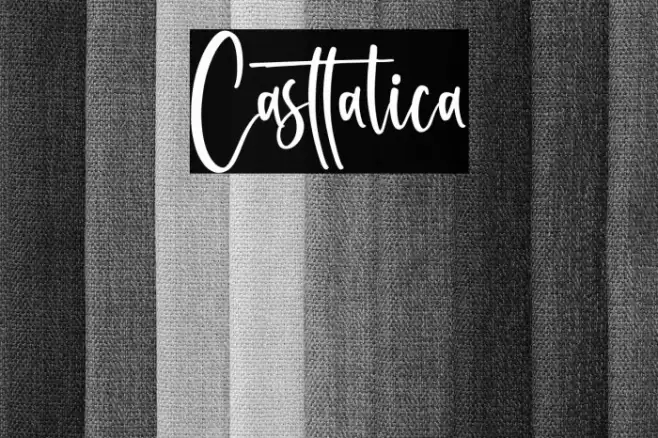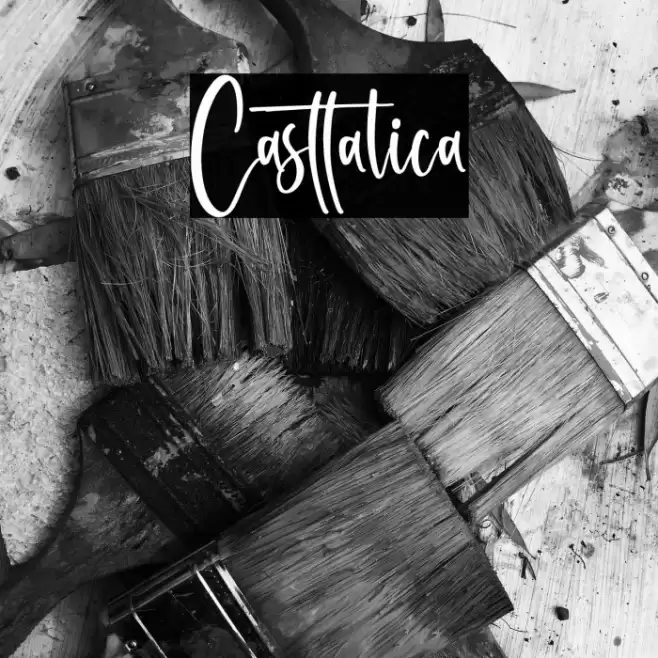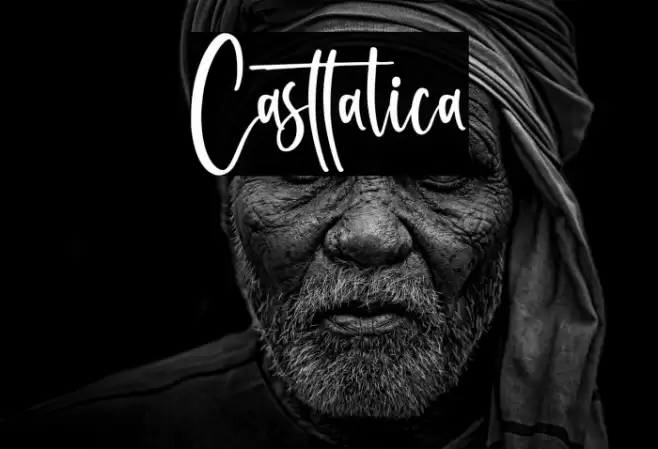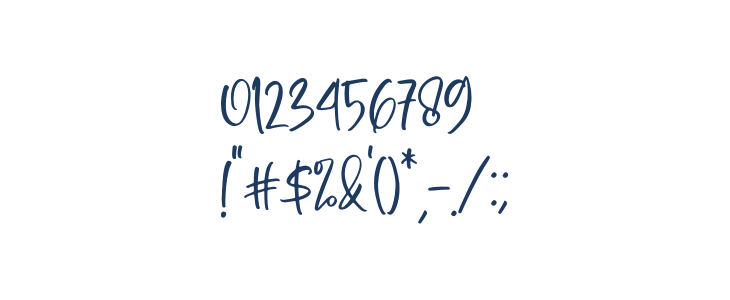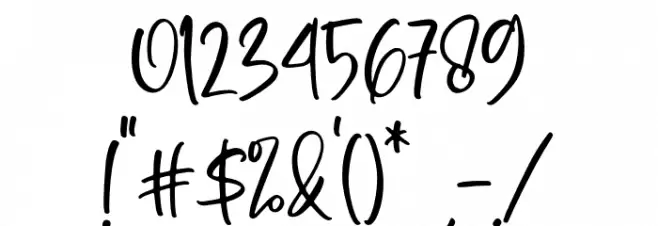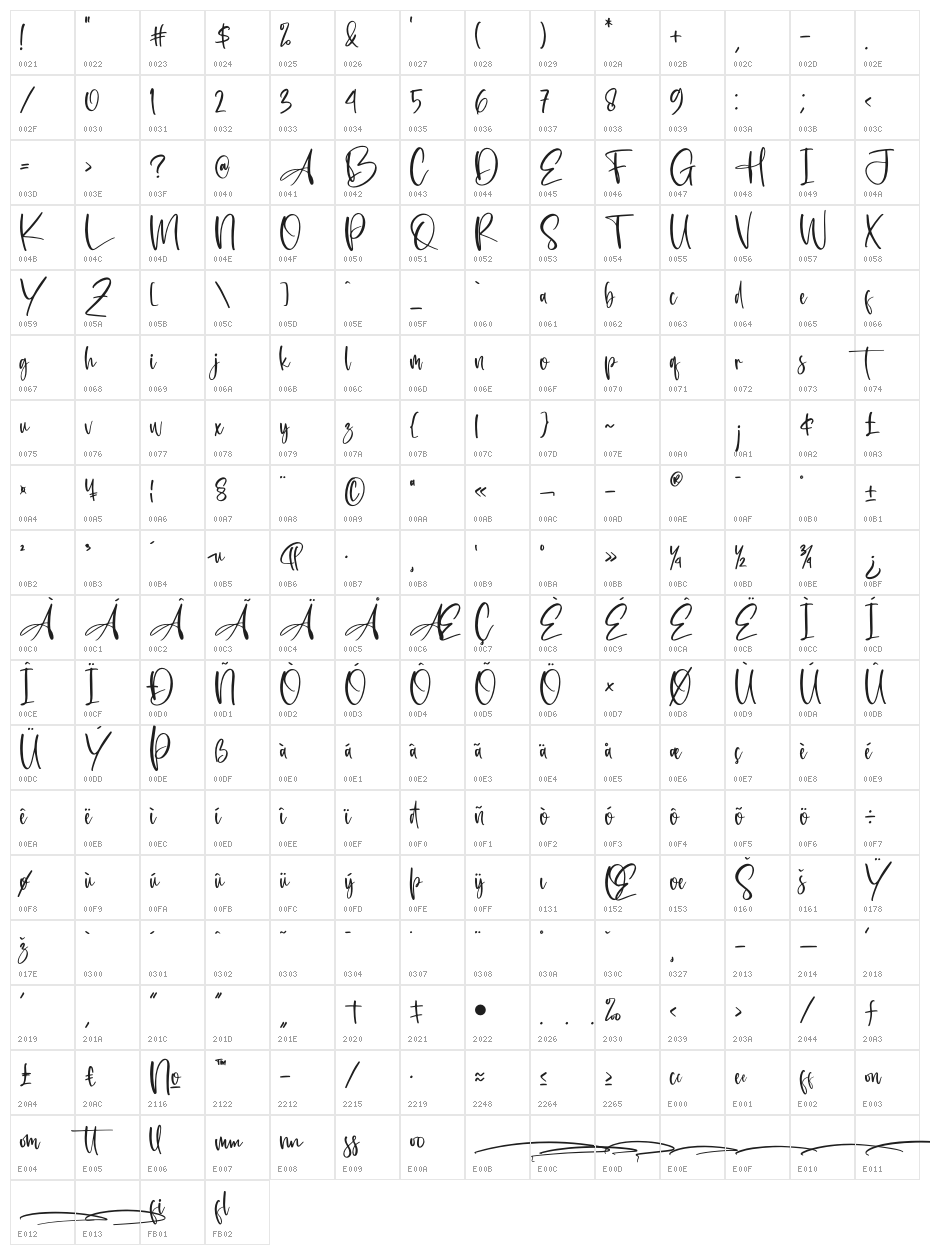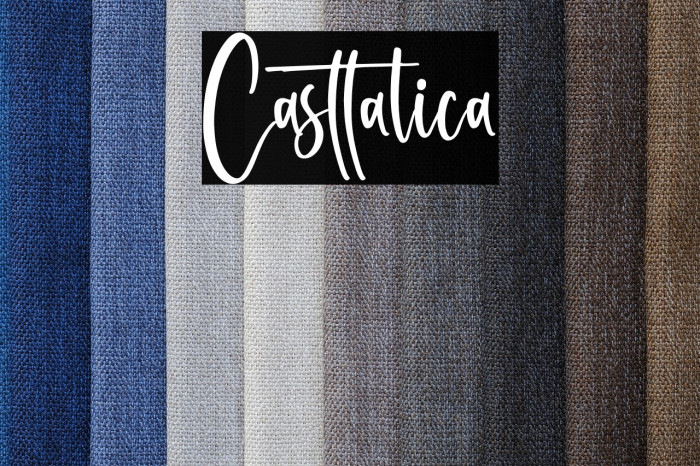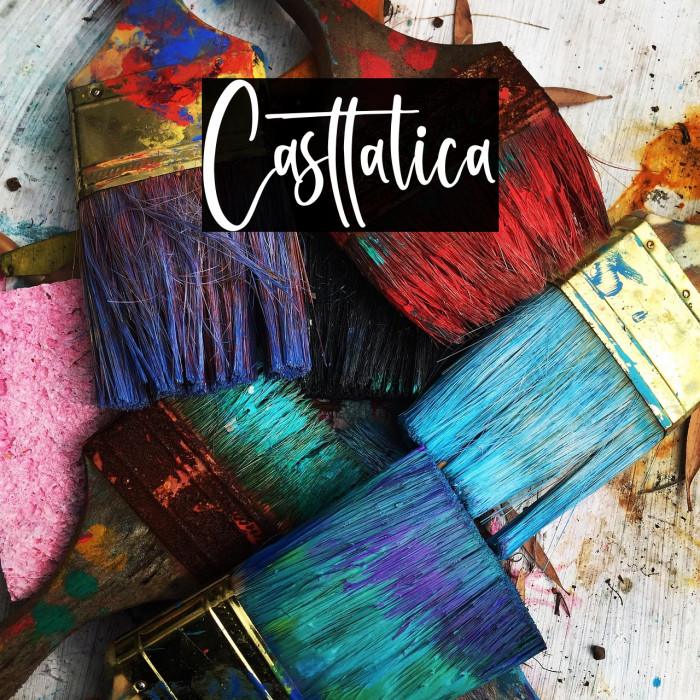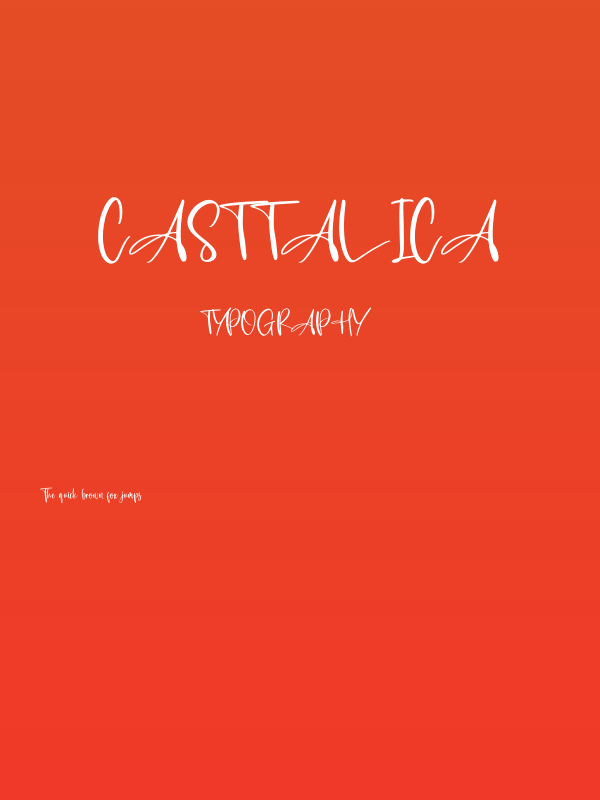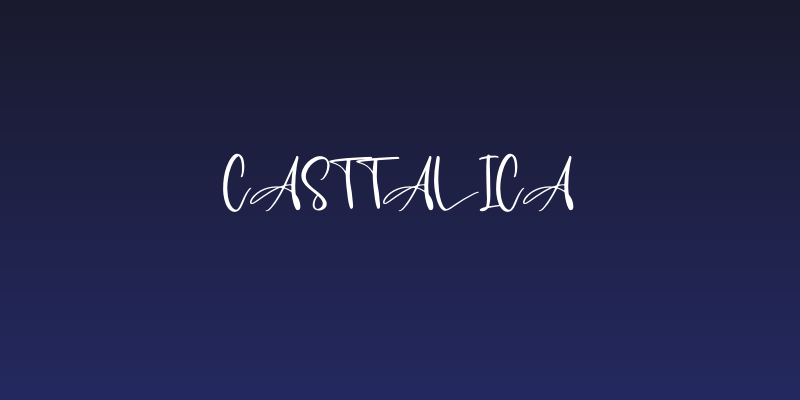
Casttalica Font
Casttalica Description
This font features a dynamic and expressive handwritten style, characterized by its fluid and flowing letterforms. The uppercase letters exhibit a playful yet elegant flair, with varying stroke widths that add a sense of movement and energy. The lowercase letters maintain this lively aesthetic, with a slightly more compact form that complements the uppercase. Numbers and special characters are crafted with the same attention to detail, ensuring consistency across all elements. The overall appearance is both modern and artistic, making it suitable for projects that require a personal and creative touch.
A dynamic, expressive handwritten font with fluid, flowing letterforms from Uncategorized fonts.
- Proposed Projects: Ideal for branding, invitations, greeting cards, and social media graphics.
- Use Case: Logos, Headlines, Invitations